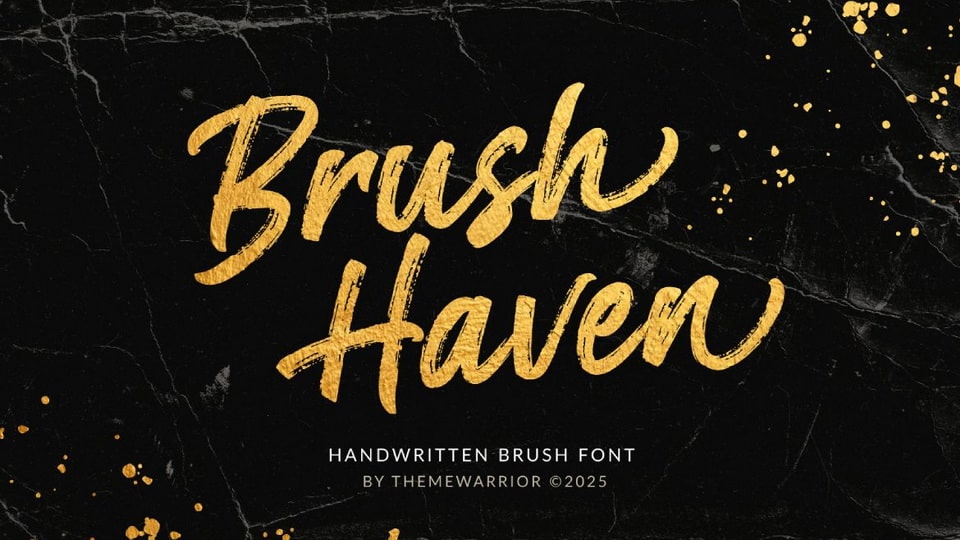
Download Brush Haven font, a bold and expressive brush typeface that brings a handcrafted feel to your designs. With smooth strokes and an artistic vibe, it’s perfect for logos, posters, and social media.
Designer: ThemeWarrior